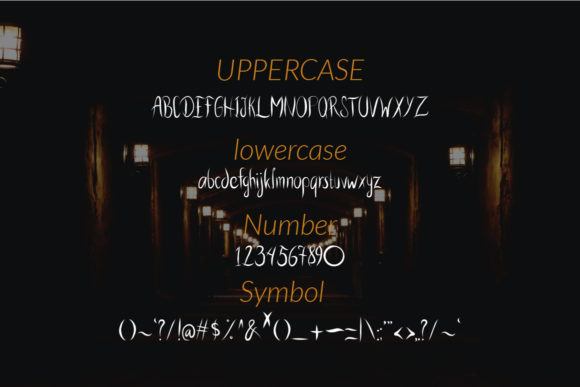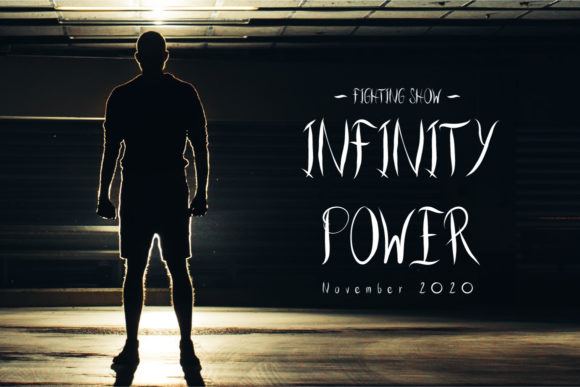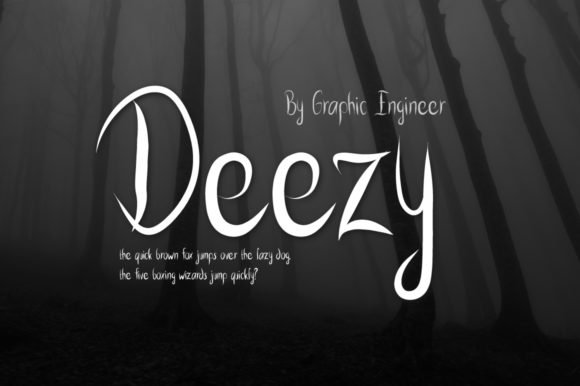
Introduction to Deezy Font
Deezy is a sweet and modern handwritten font.
It is suitable for any branding, product packaging, invitation, quote, t-shirt, label, poster, logo that you wish to develop .
Why Choose Deezy Font?
Deezy Font offers exceptional quality and versatility, making it a valuable addition to your design toolkit. Whether you’re creating for personal projects or commercial use, Deezy Font delivers professional results.